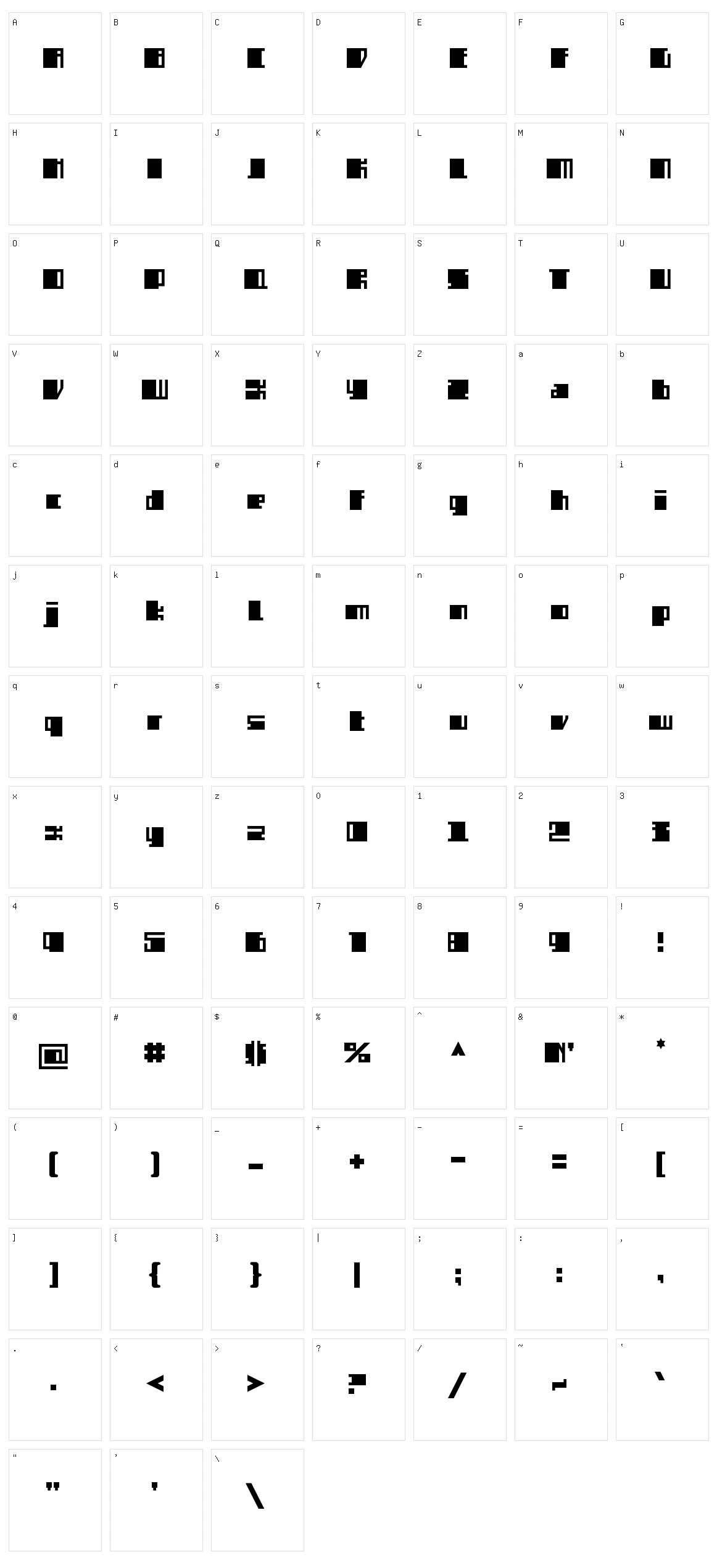
The free font Semiz Black is carefully designed by Kassymkulov Design, showcasing a thoughtful balance of creativity and usability and falls under the Square font style. When you download the ZIP file, it contains only 6.09 KB of font files, making it lightweight and quick to download. Please review the license details below to understand permitted usage and distribution rights. If license information is not available, we recommend using this font for personal projects only or contacting the author directly for commercial usage permissions.